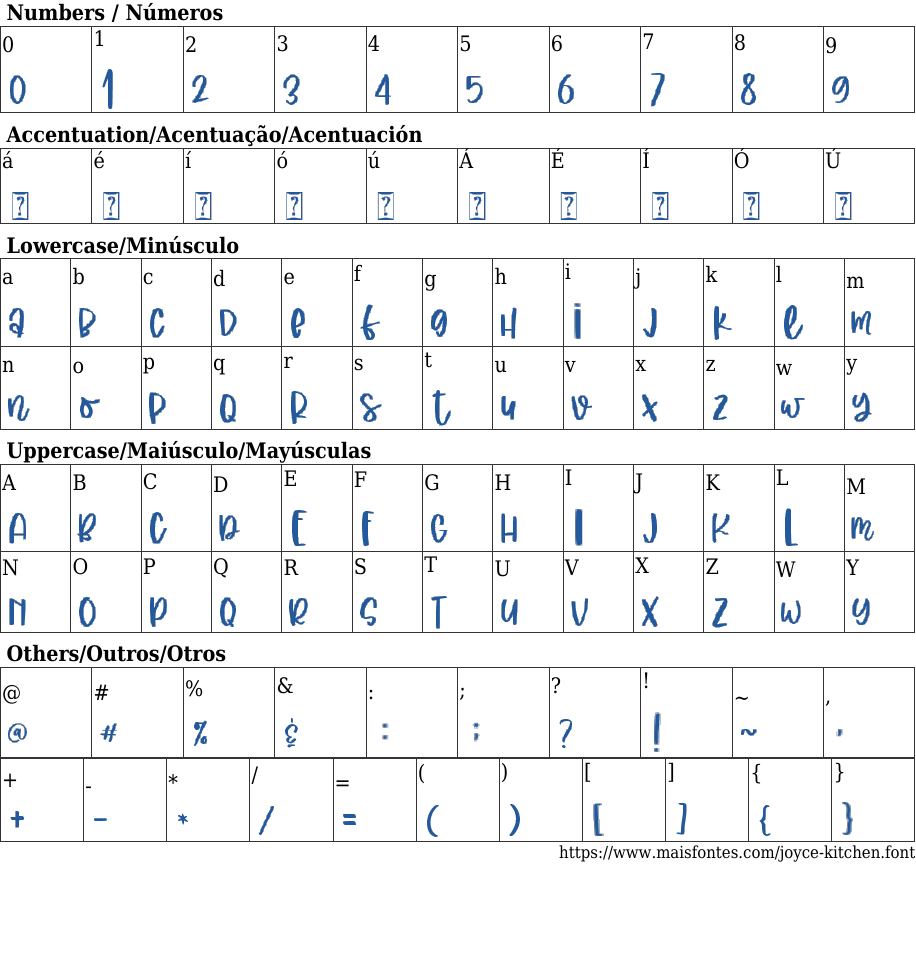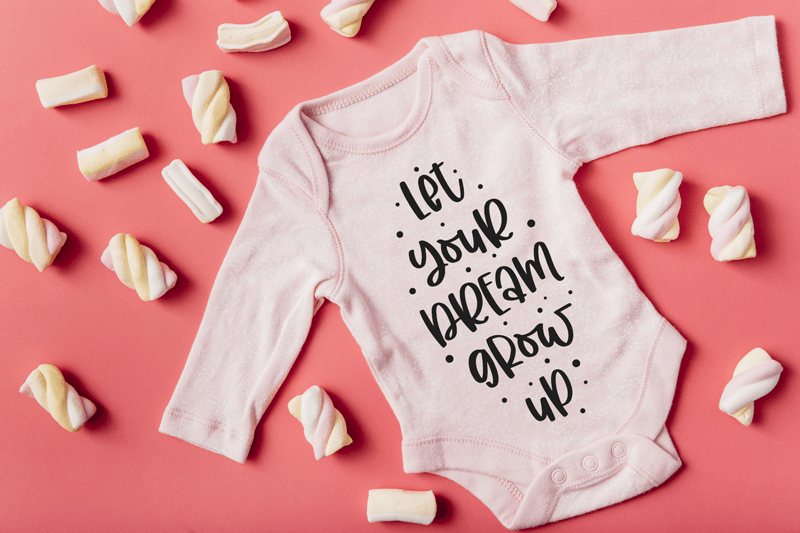
Joyce Kitchen Font . Free download of joyce kitchen font. This versatility will appeal to a wide range of crafty ideas, from letterheads and titles, to stationery. Click now to create a custom image with your own words that you can. Get your very own free download of the joyce kitchen font, designed and created by abo daniel studio. It maintains its classy calligraphic influences while feeling contemporary and fresh. 24,425 downloads (3 yesterday) free for personal use. This font features a playful and casual handwritten style with smooth, rounded edges and a consistent stroke width. Available in both ttf and otf typeface. Joyce kitchen is a casual, fun handwritten font.
Get your very own free download of the joyce kitchen font, designed and created by abo daniel studio. This font features a playful and casual handwritten style with smooth, rounded edges and a consistent stroke width. It maintains its classy calligraphic influences while feeling contemporary and fresh. Joyce kitchen is a casual, fun handwritten font. Click now to create a custom image with your own words that you can. 24,425 downloads (3 yesterday) free for personal use. This versatility will appeal to a wide range of crafty ideas, from letterheads and titles, to stationery. Free download of joyce kitchen font. Available in both ttf and otf typeface.
Joyce Kitchen Font Joyce kitchen is a casual, fun handwritten font. Free download of joyce kitchen font. Click now to create a custom image with your own words that you can. Joyce kitchen is a casual, fun handwritten font. 24,425 downloads (3 yesterday) free for personal use. It maintains its classy calligraphic influences while feeling contemporary and fresh. Get your very own free download of the joyce kitchen font, designed and created by abo daniel studio. This font features a playful and casual handwritten style with smooth, rounded edges and a consistent stroke width. This versatility will appeal to a wide range of crafty ideas, from letterheads and titles, to stationery. Available in both ttf and otf typeface.